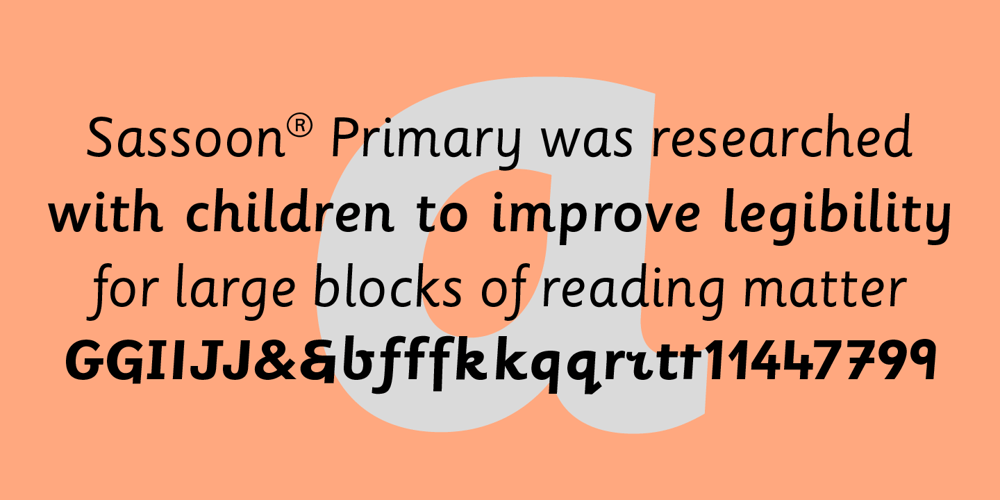
Sassoon Primary
Sassoon Primary font
Sassoon Primary Font Family was designed by Rosemary Sassoon and published by Sassoon-Williams. Sassoon Primary contains 6 styles and family package options. The Regular typeface was researched with children and developed specially for use in children’s reading books – bridging the gap between reading and handwriting. Short ascenders and descenders may not trouble literate adults but it is quite a different matter for children struggling to read. These fonts include extended ascenders and descenders and slight slant makes blocks of text easier to read.Free to download resourcesHow to access Stylistic Sets of alternative letters in these fonts